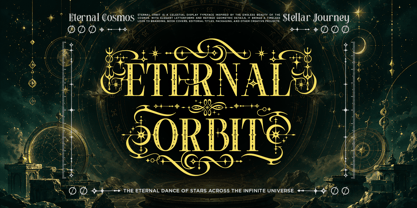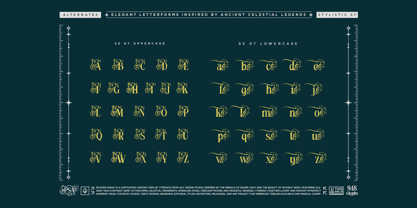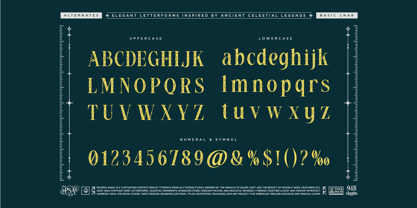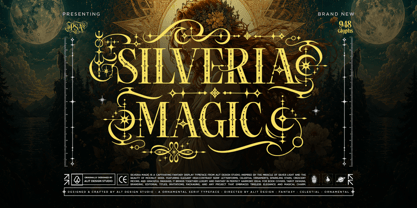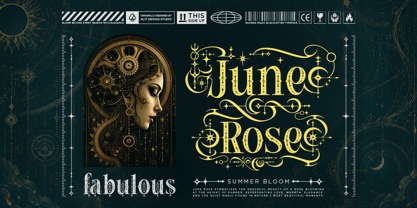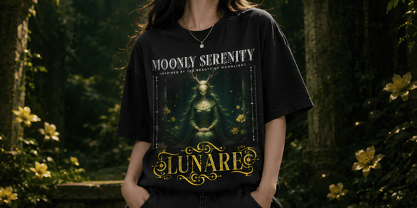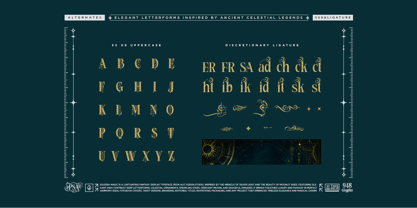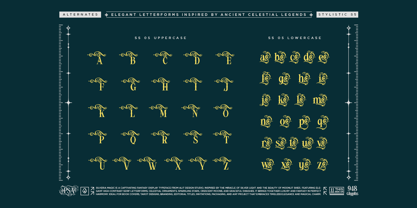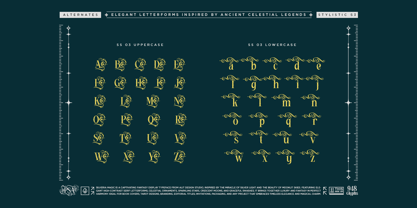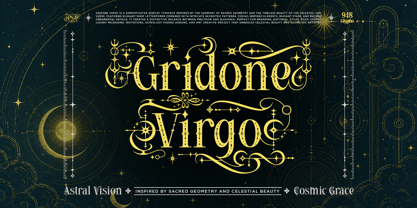
Silveria Magic
Die Schriftfamilie Silveria Magic wurde von Alit Suarnegara entworfen und von Alit Design veröffentlicht. Silveria Magic enthält 1 Stile. Mehr über diese Familie
Silveria Magic – Celestial Fantasy Typeface
Step into a world of eternal enchantment with Silveria Magic, a captivating fantasy display typeface inspired by the miracle of silver light and the timeless beauty of moonlit skies.
Crafted with precision, Silveria Magic features elegant, high-contrast serif letterforms that beautifully balance luxury and mystical charm. What truly sets this typeface apart is its breathtaking collection of celestial ornaments—sparkling stars, crescent moons, and graceful flowing swashes that allow you to create custom, magical typographic compositions.
Boasting an expansive library of 948 glyphs, this typeface offers boundless creative freedom. It comes fully equipped with a wide range of OpenType features, including intricate stylistic sets (like SS07 and SS08) and custom ligatures (such as fi, fl, ch, ck, st), ensuring your typography flows seamlessly. To complete the enchanting experience, Silveria Magic includes a dedicated set of bonus celestial dingbats to perfectly frame your designs.
Perfect For:
• Publishing: Fantasy book covers, editorial titles, and chapter headings.
• Mystical & Esoteric: Tarot card designs, astrology-themed projects, and zodiac illustrations.
• Branding & Packaging: Luxury branding, boutique packaging, and elegant logo design.
• Events & Apparel: Dreamy wedding invitations, greeting cards, and striking t-shirt graphics.
What’s Included:
• Extensive OpenType Features (Stylistic Alternates, Swashes, Ligatures)
• 948 Total Glyphs
• Multilingual Support
• PUA Encoded Characters (Fully accessible without additional design software)